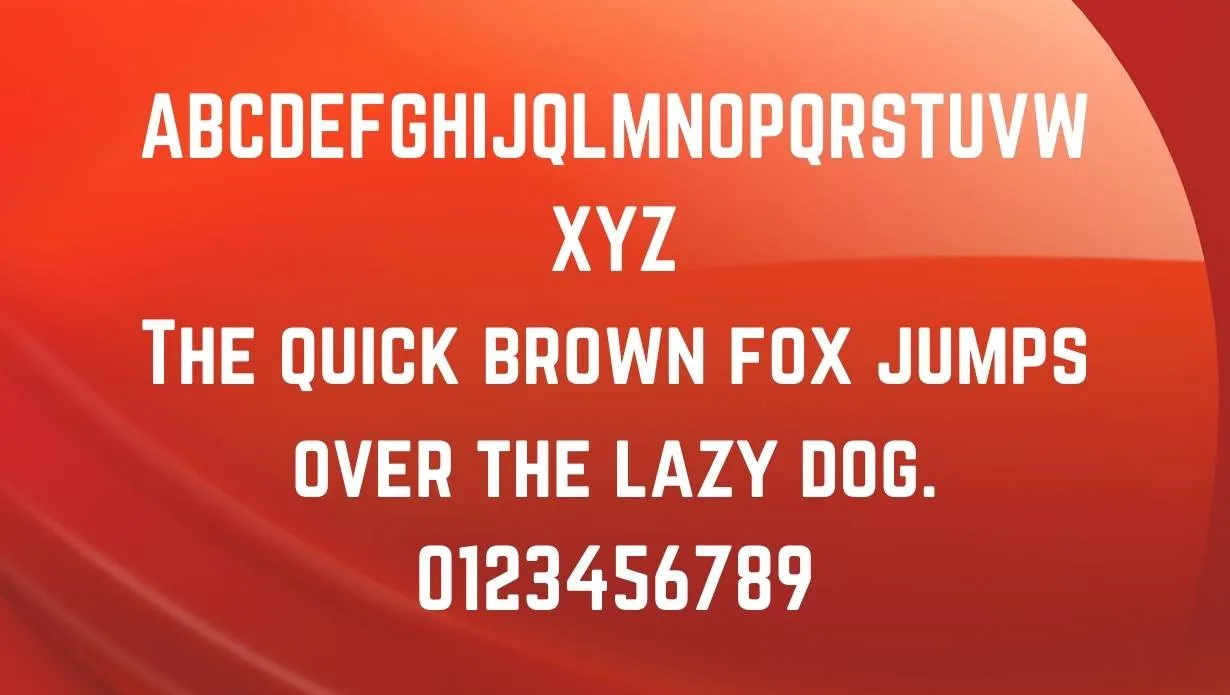
Here we are introducing you to an amazing typeface that has clear textures and appearances named Norwester Font. This Font is designed with uppercase, small caps, numbers, and a collection of Symbols. This font is designed by “Jamie Wilson”.
This font belongs to the family of sans serif. It was developed in 2013 during the research on graphic designing.
Its values of use increase when Jamie represents its core functionality he said. This font look is very simple and easy to understand for the user. This font is very similar to Nimbus sans font.
| Name | Norwester Font |
| Designer | Jamie Wilson |